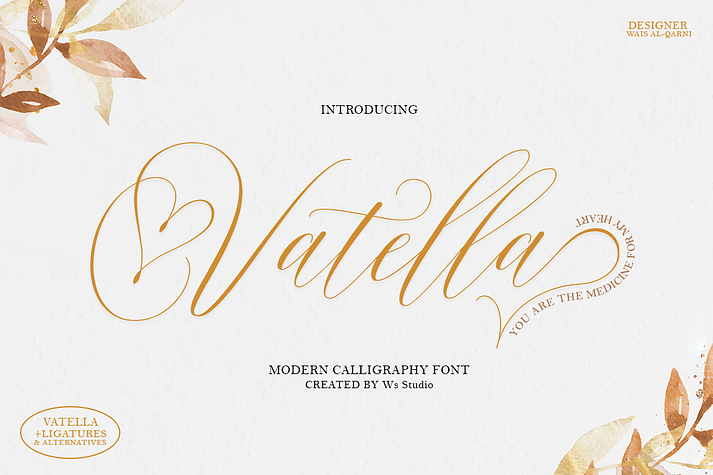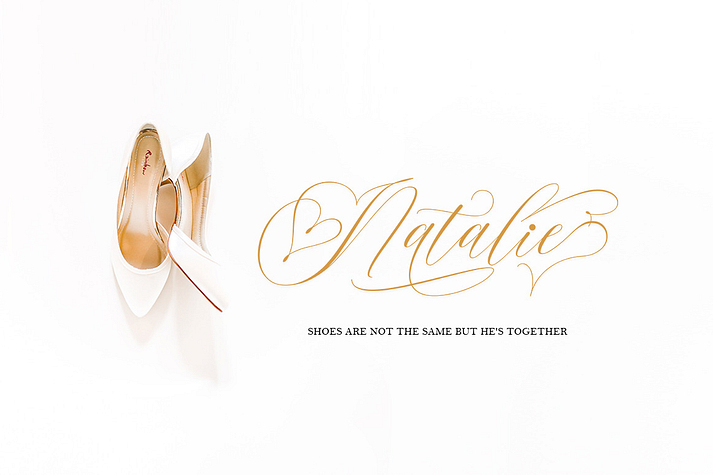
Vatella
Vatella is a font family published by Ws Studio.
Vatella is a vintage-inspired calligraphy script font, perfect for the elegant touch needed for logos, wedding invitations, modern websites, greeting cards and more! Included is a full set of uppercase swash letters, as well as a final lowercase swash version, for a more custom branded look.
Vatella Script Features
Complete Set of standard alphabet and punctuation marks Additional set of washed initial capital letters Additional set of brushed lowercase endings Alternate extra styles and fasteners PUA Encoded - no special software required to access additional swashed characters Multilingual Characters (ÁÂÄÀÅÃÆÇÐÉÊËÈÍÎÏÌÑÓÔÖÒØÕŒÞÚÛÜÙẂŴẄẀÝŶŸỲ áâäàåãæçðéêëèíîïìñóôöòøõœþßúûüùẃŵẅẁýŷÿỳŠŽšž€£¥ªº)